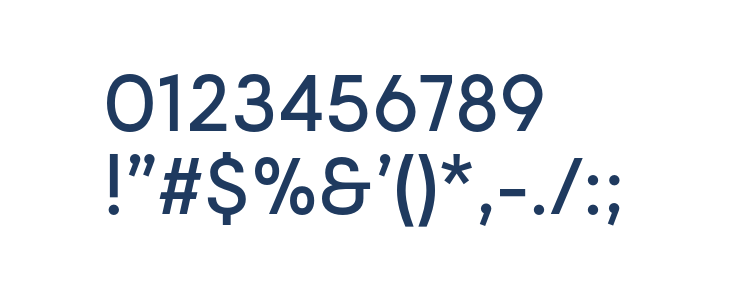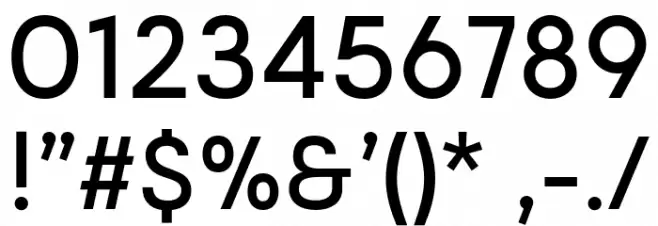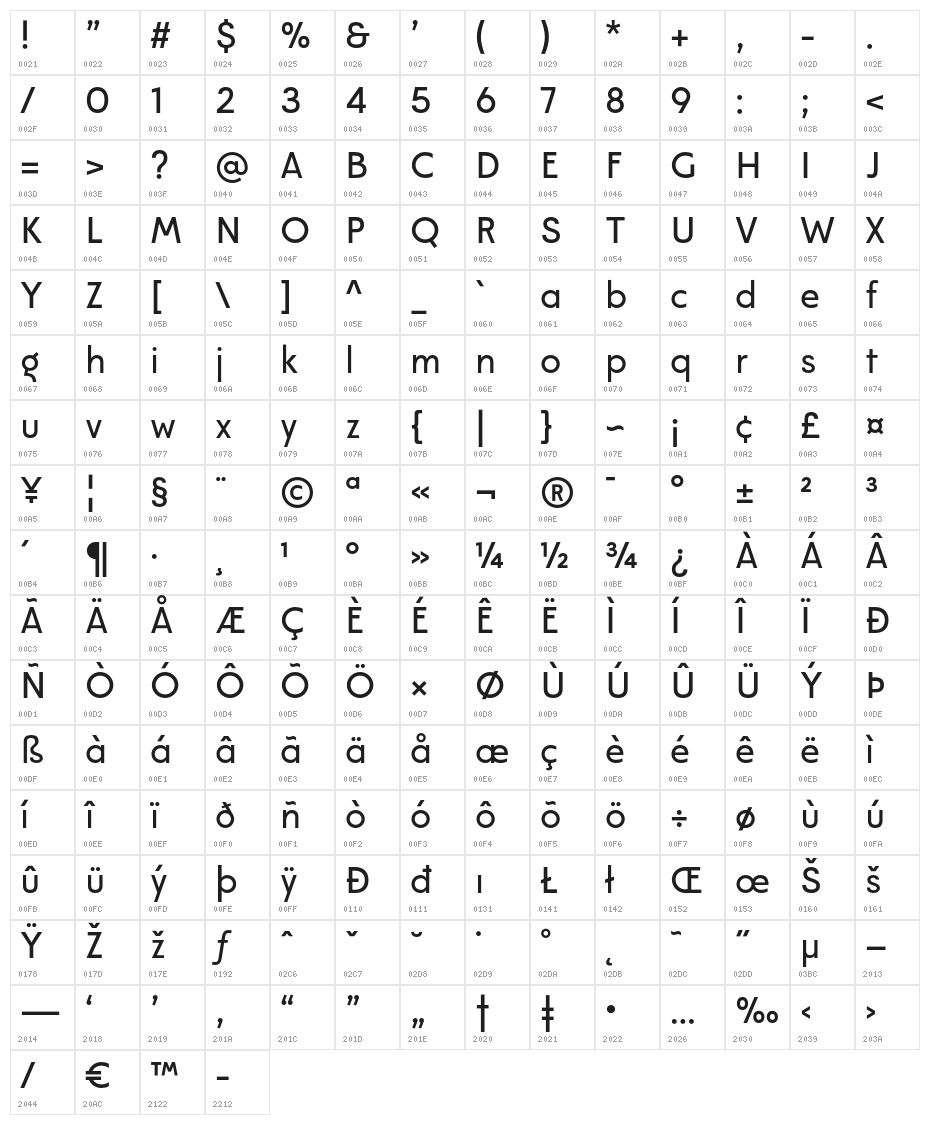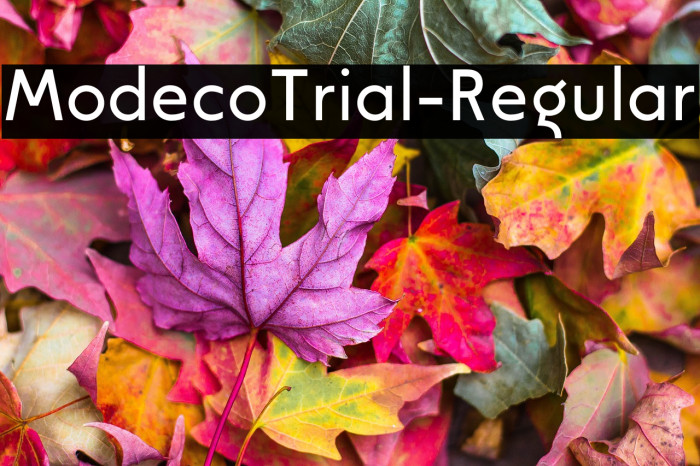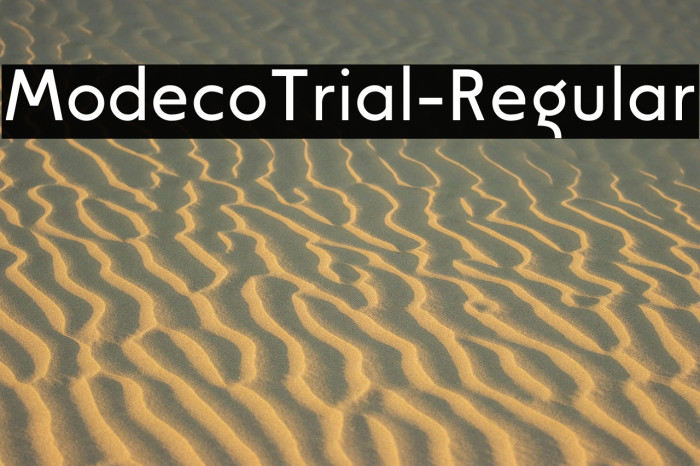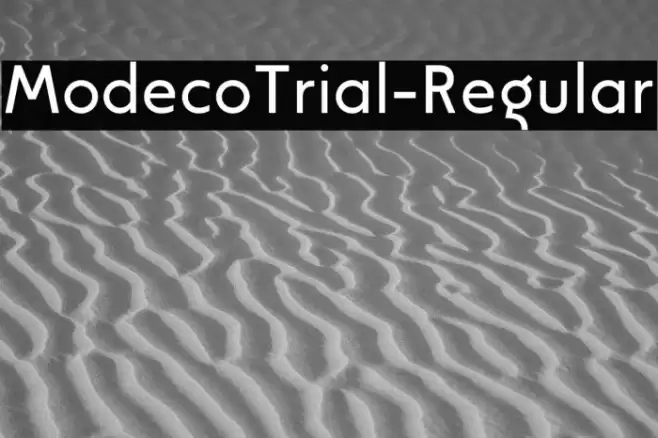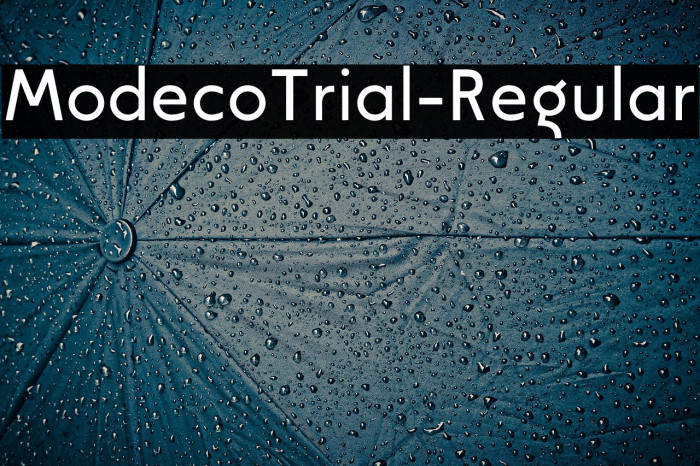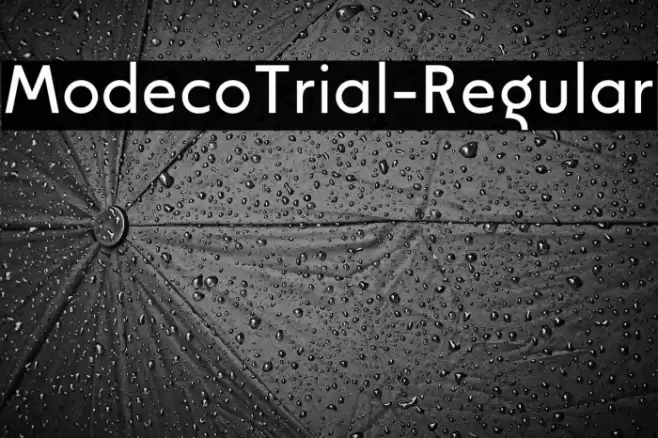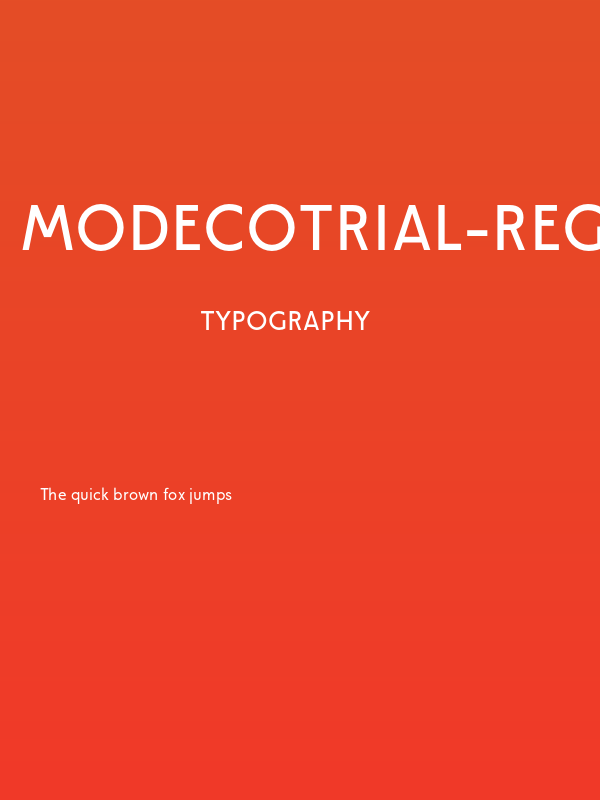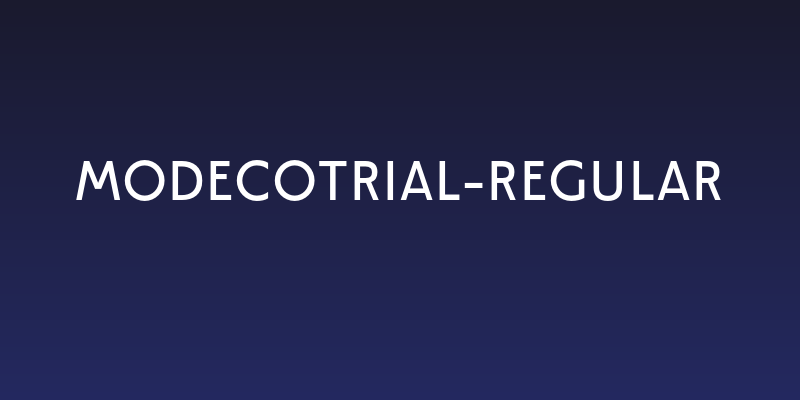
ModecoTrial-Regular Font
ModecoTrial-Regular Description
This font features a clean and modern sans-serif design, characterized by its geometric shapes and balanced proportions. The uppercase letters are bold and assertive, while the lowercase letters maintain a consistent and harmonious flow. The numerals are clear and easily distinguishable, making them suitable for various applications. Special characters are well-integrated, ensuring versatility in design projects. The overall aesthetic is sleek and contemporary, appealing to those seeking a minimalist yet impactful typeface.